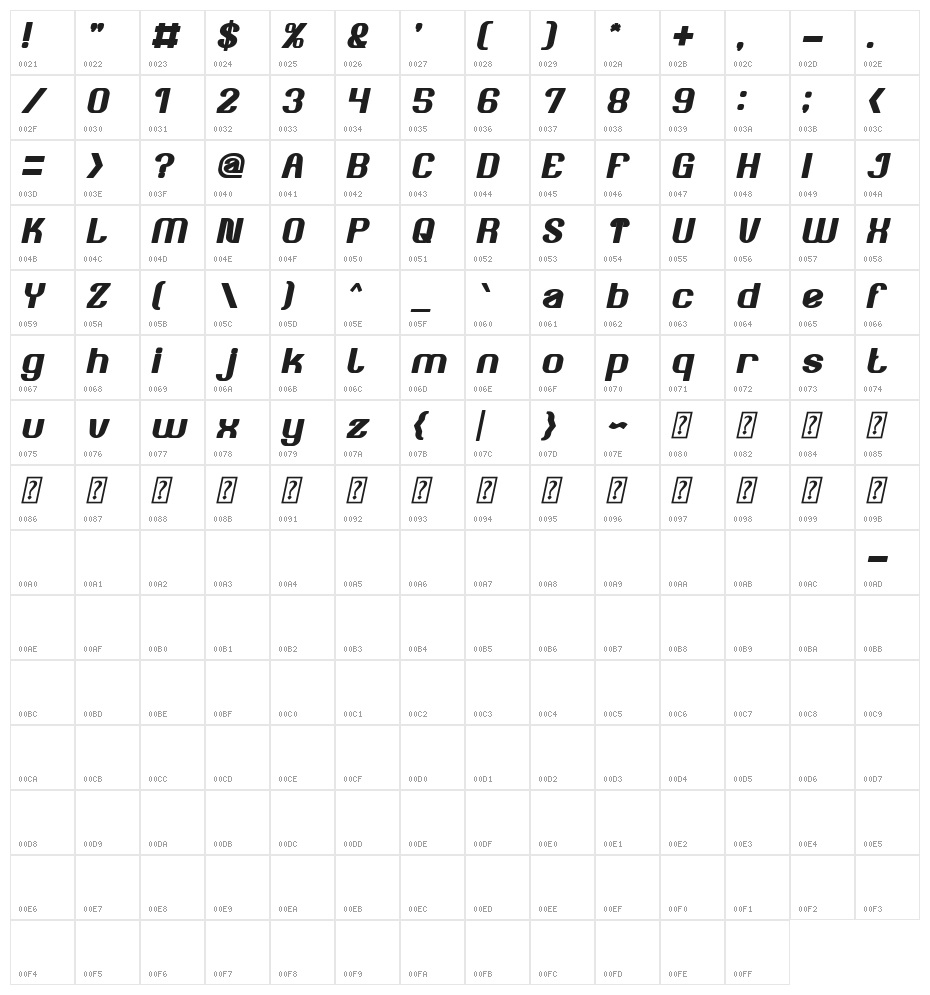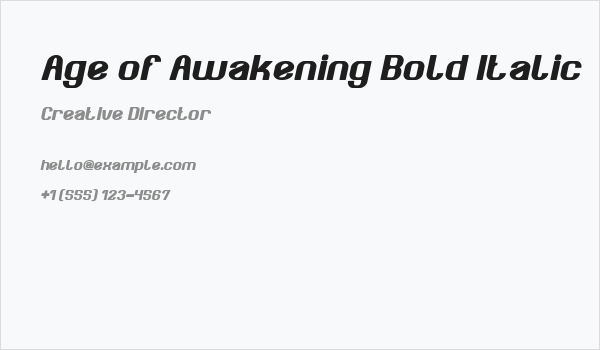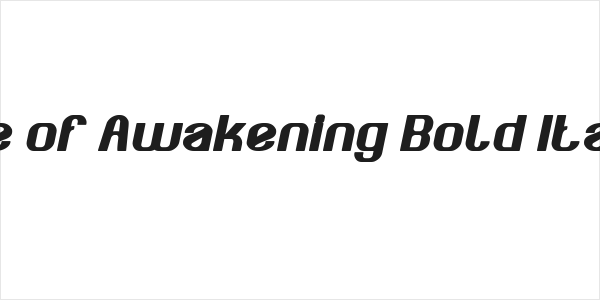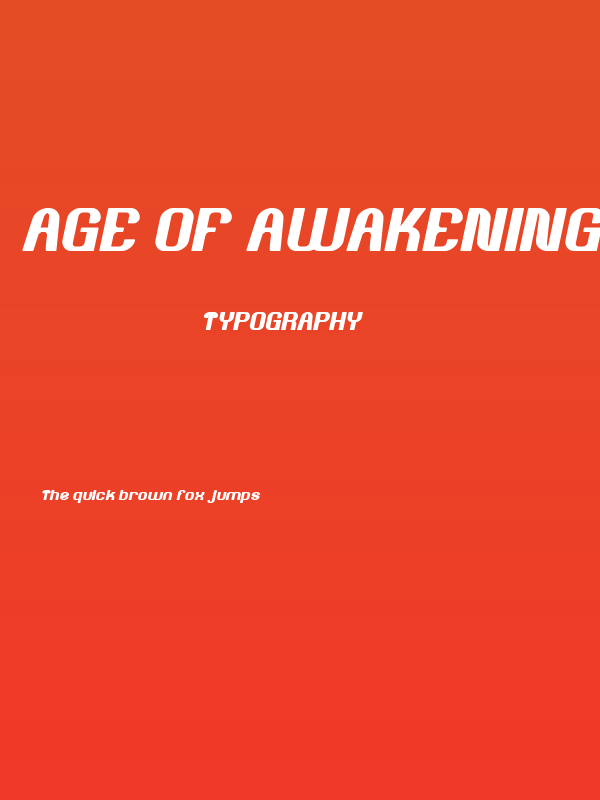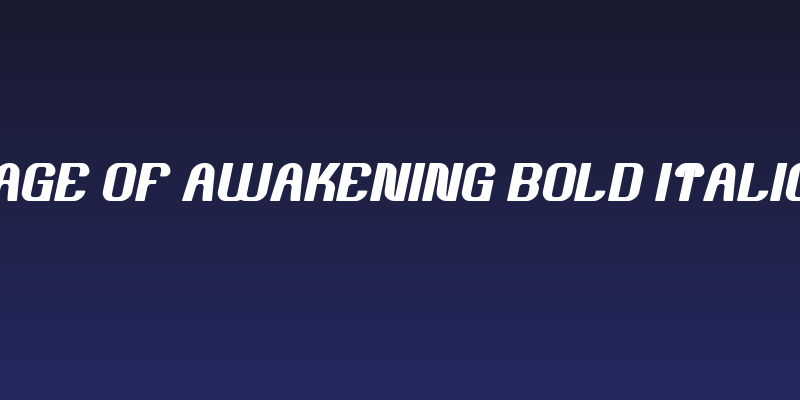
Age of Awakening Bold Italic Font
Age of Awakening Bold Italic Description
This font features a bold and italic style, characterized by its strong, dynamic presence. The letters are slightly slanted, giving a sense of motion and energy. The strokes are thick and consistent, providing a robust and impactful appearance. The design is modern and sleek, with a touch of elegance due to its italic nature. The characters are well-defined, with a uniform width that maintains readability. This font is suitable for making bold statements and capturing attention.
| Proposed Projects | Ideal for branding, headlines, posters, and advertising materials where a strong, modern impression is desired. |